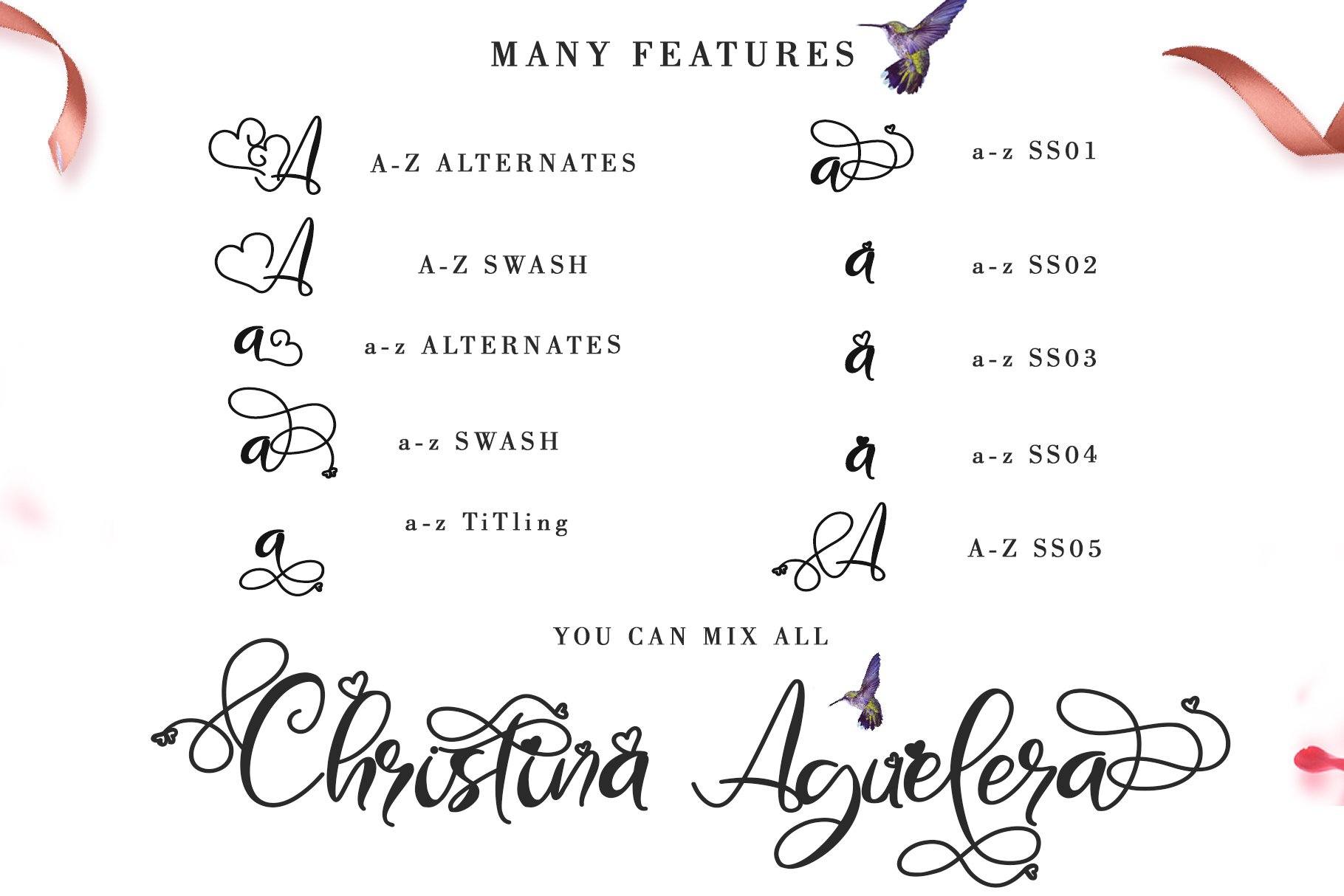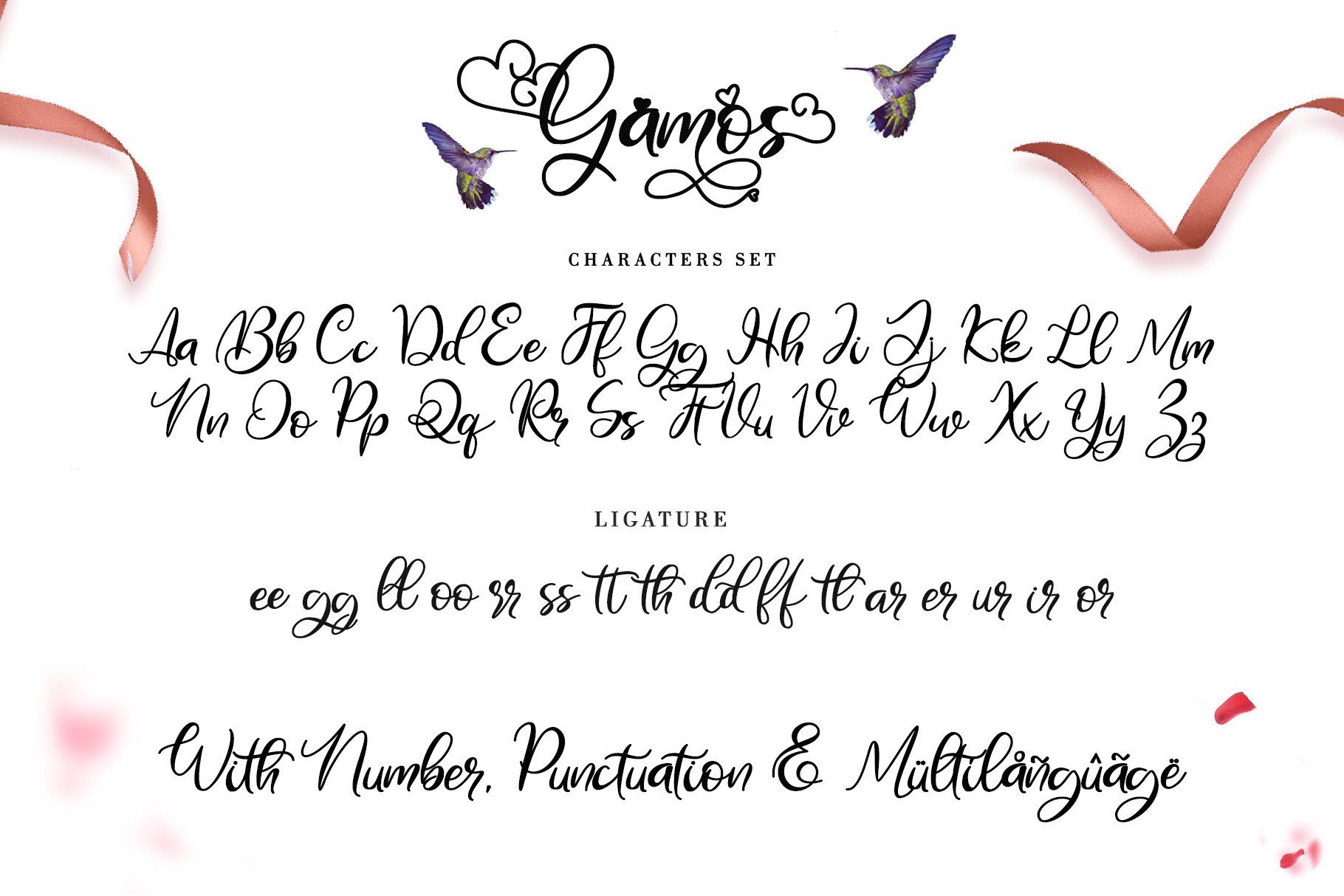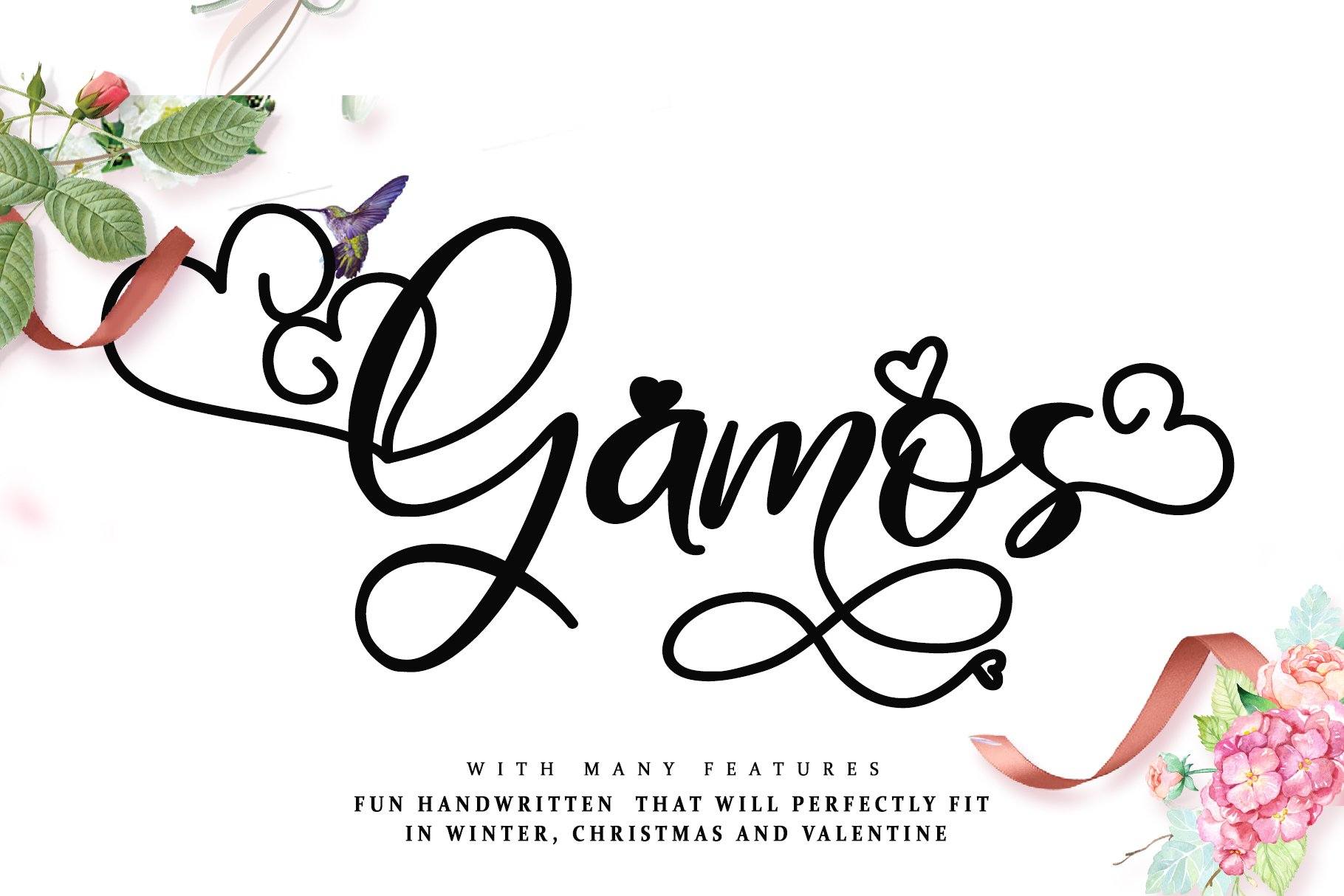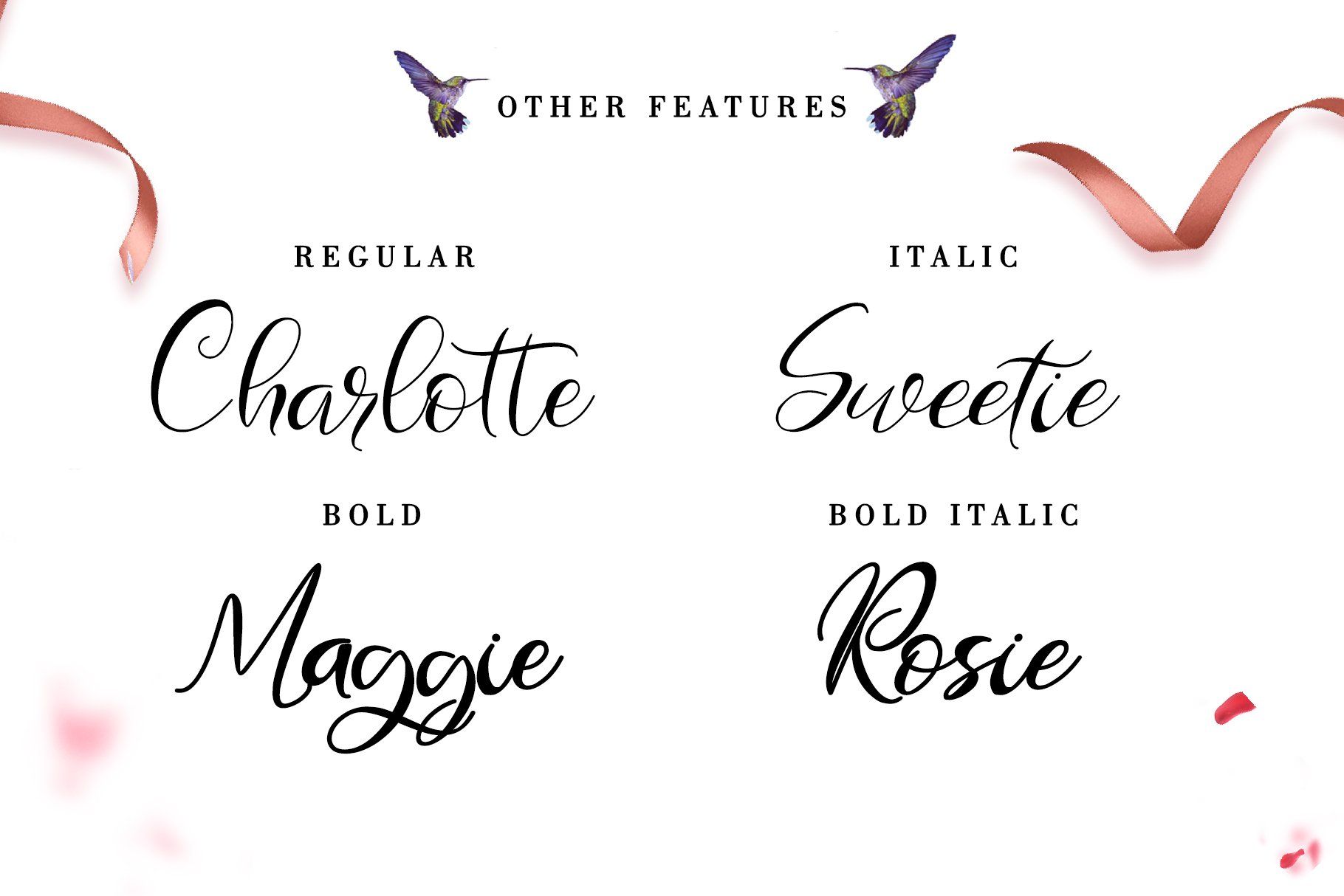
About Gamos
Gamos comes from Greek which means marriage. add some love in an instant. The font comes decorated with small embellishments, such as hearts. Making it the perfect font for Valentines Day designs, but also Christmas, Weddings, Anniversaries, Birthdays escort cards, table numbers, header menus, display’s, logos, slider blogs, custom addresses, stamps, packaging, greeting cards, and much more! Thanks for checking out my store, and feel free to get in touch if you have any questions!  WITH MANY FEATURES : Upper Case & Lowercase Numerals Punctuations (OpenType Standard) Accents (Multilingual characters) Alternates (A-Z), Alternates (a-z), Ligatures, Swash (A-Z), Swash (a-z), Titling (a-z), A-Z ss01, a-z ss02, a-z ss03, a-z ss04, a-z ss05 family font: regular, italic, bold, bold italic Works on PC & Mac Simple installations Accessible in the Adobe Illustrator, Adobe Photoshop, Adobe InDesign, even works on Microsoft Word. don’t wait anymore, put it in your shopping basket 🙂 and follow me, because there will be many promos! Our other products : BEST SELLER JENNIE BLACK PINK SIGNATURE ANDORA BRIGITTA HEANFFE EIFFEL IN LOVE ( FONT TRIO) BLACK PINK SUMMER HONG KONG ANGEL MALEFICENT California Street BESTOWENS FAMILY